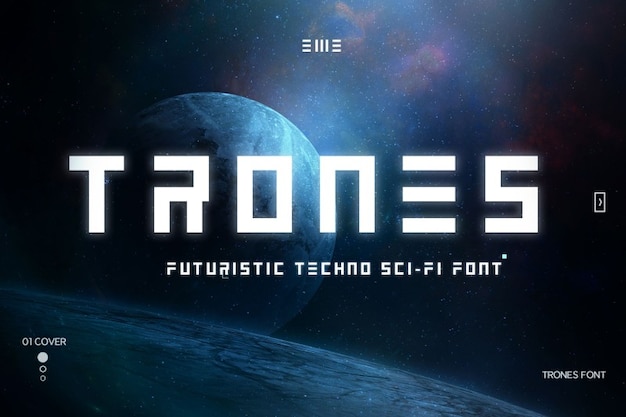
Trones
Trones Font
Futuristic and techno-inspired, Trones embodies a sci-fi essence with its geometric precision. Its sleek, geometrical forms reflect a futuristic aesthetic, perfect for conveying a high-tech vibe in sci-fi designs. With precise lines and a modern edge, this font captures a sense of technological advancement, ideal for projects seeking a futuristic typographic style, infusing designs with a cutting-edge, sci-fi allure rooted in geometric precision.